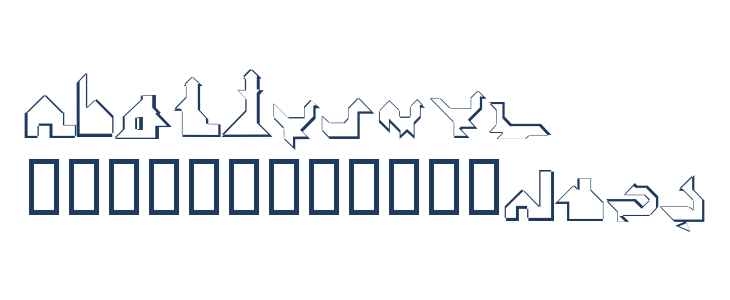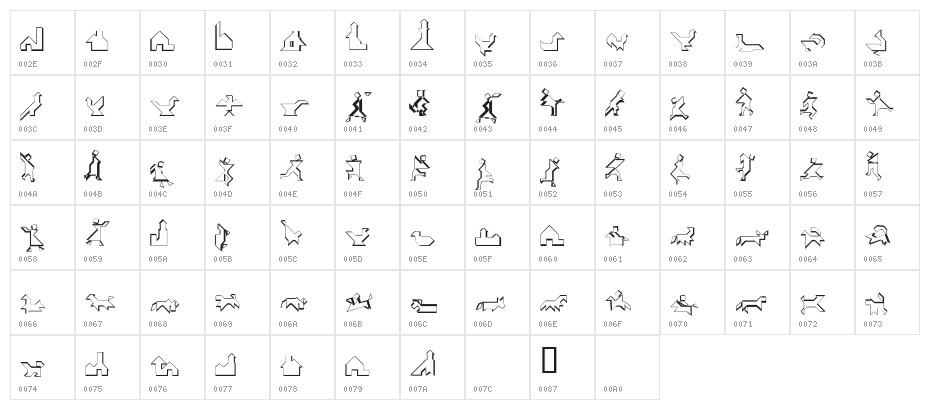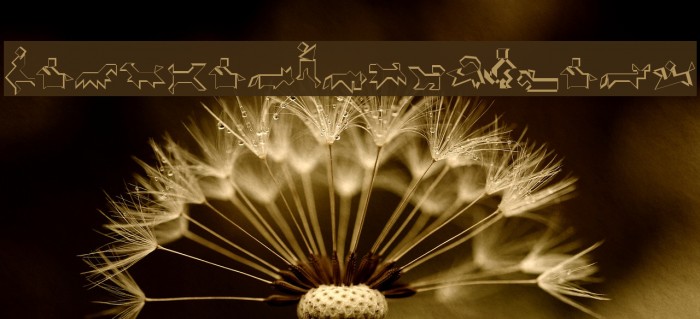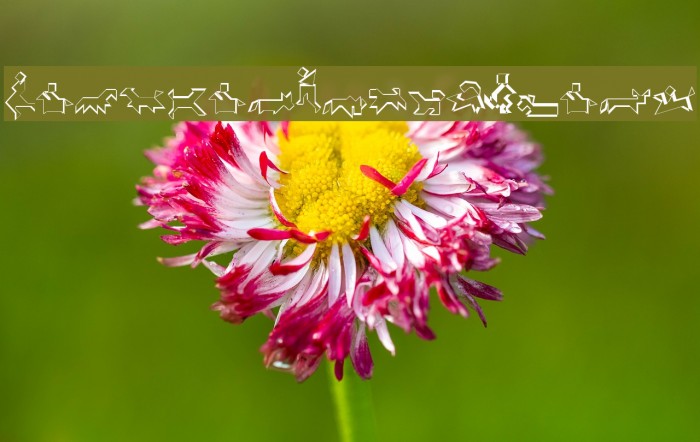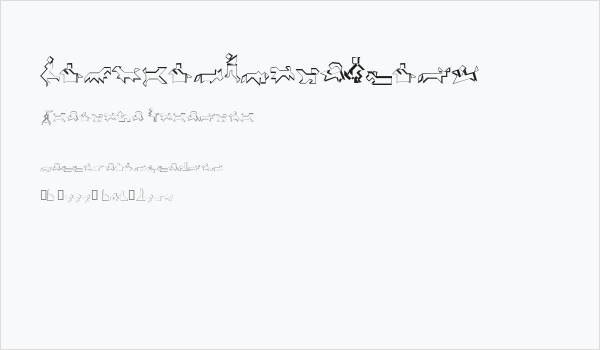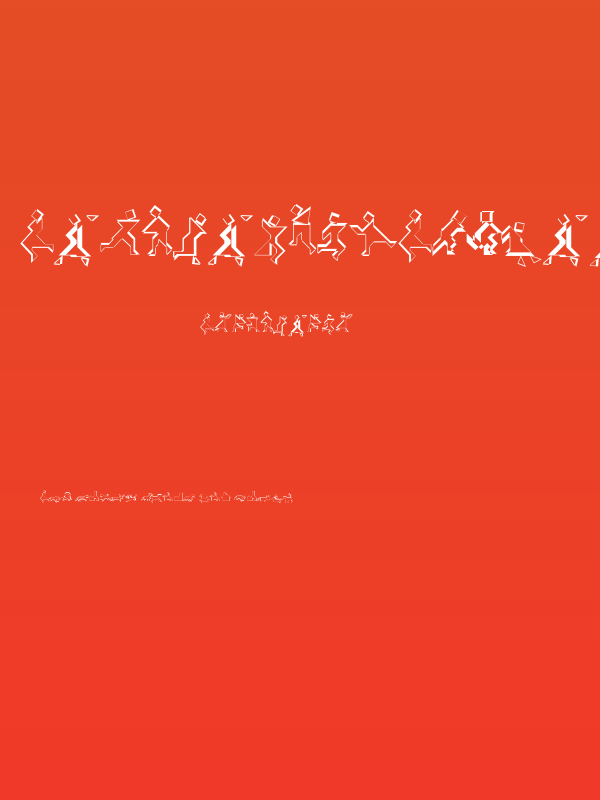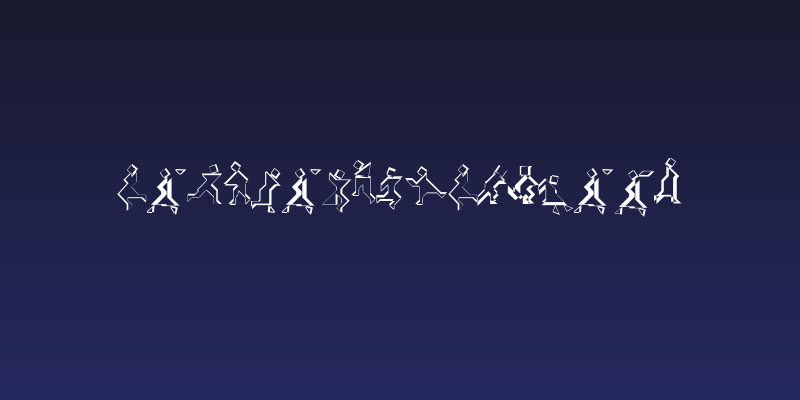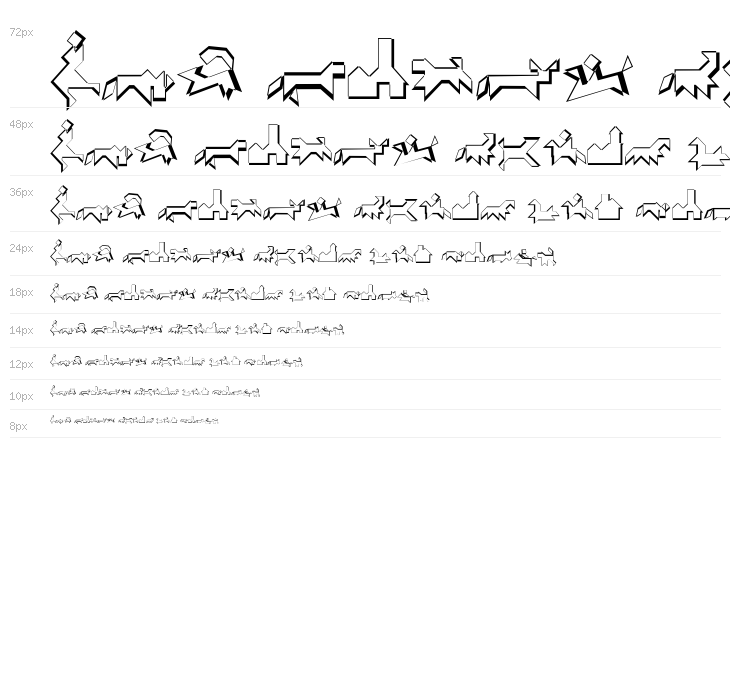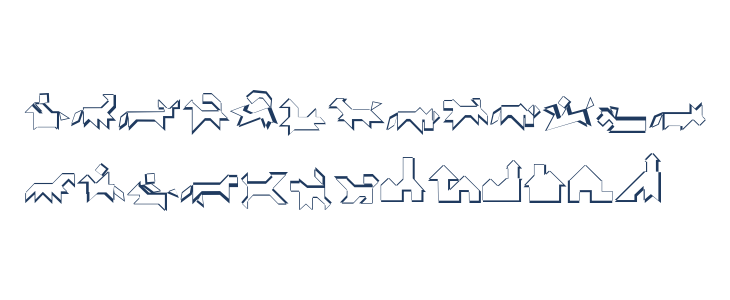
TangramWhiteBlack Font
TangramWhiteBlack Description
This design features a creative and abstract representation of characters using tangram-inspired shapes. Each character is formed by assembling geometric pieces, resulting in a playful and artistic style. The figures are outlined in black, with a white fill, creating a striking contrast that enhances their visibility. The characters resemble human figures, animals, and buildings, offering a unique visual experience. This design is not a traditional font but rather an artistic interpretation of characters, making it suitable for decorative purposes.
| Overall Style | Artistic, Abstract |
| Use Case | Decorative elements, Art projects |
| Proposed Projects | Ideal for creative projects such as posters, art installations, educational materials, and decorative elements in design projects. |